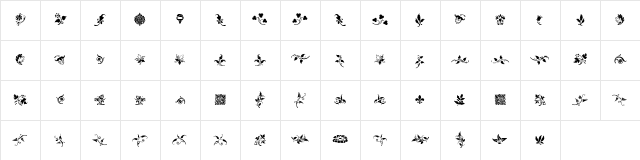
Rough Fleurons Free Regular Free Font
Rough Fleurons Free Regular
Design Context for Rough Fleurons Free
Rough Fleurons Free embraces imperfection - its rough, textured character adds raw authenticity to designs that want to feel lived-in and unconventional.